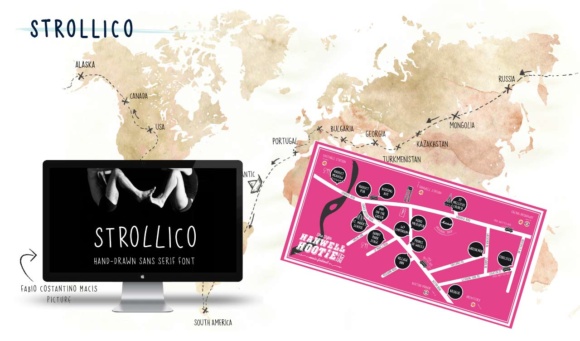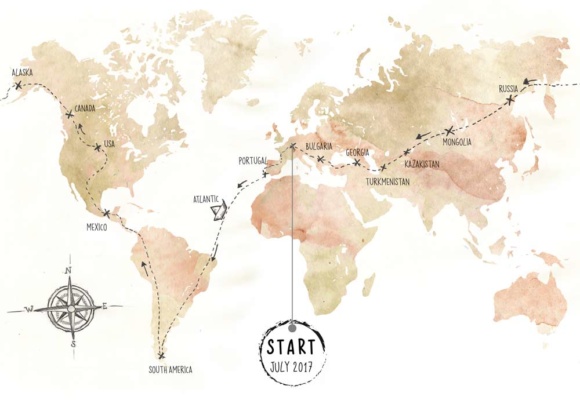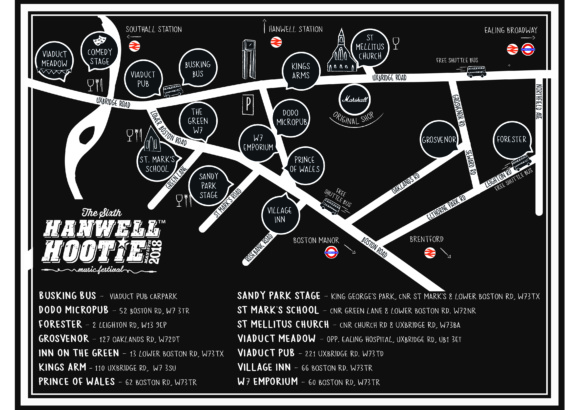
Strollico Font
About Strollico Font
Strollico is a fun, handwritten all caps font that will add tons of charm and quirkiness to your work! This sans serif font is clean and minimal, and can give your work a laid back vibe.